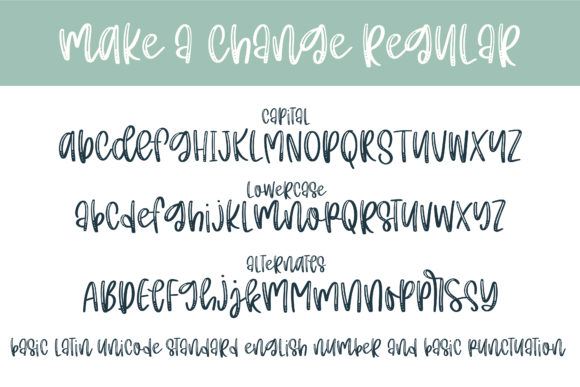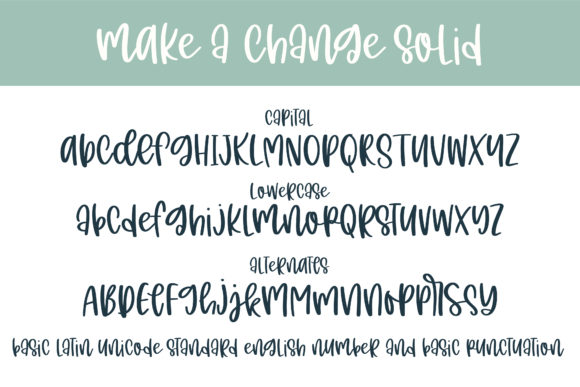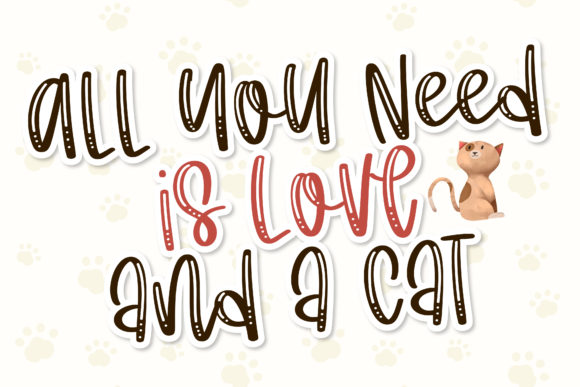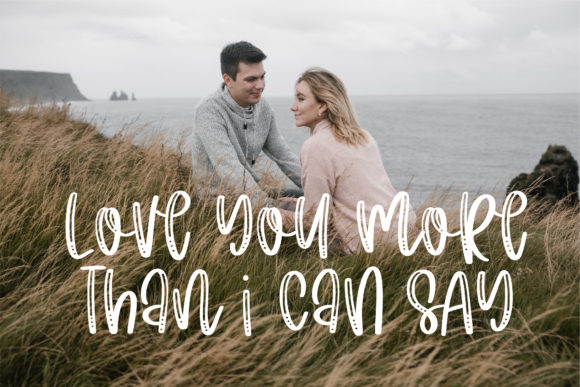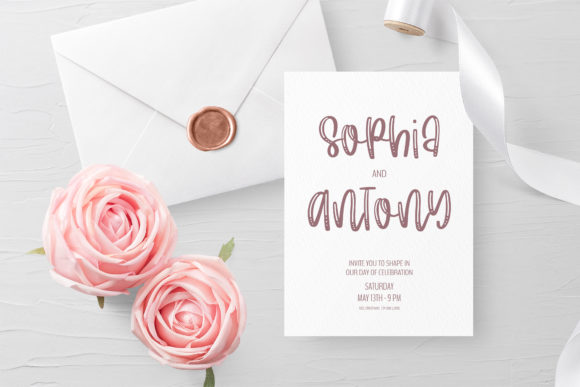
Introduction to Make a Change Font
You know that feeling when a single font can change the entire vibe of your creative project? It’s like the missing piece you’ve been searching for. That’s exactly what Make a Change Font is all about – giving your designs a unique and personalized touch.
Imagine having a font that’s not only free to download but also offers a high quality design resource that’s perfect for any creative project. With Make a Change Font, you can say goodbye to bland designs and hello to a world of possibilities. Its natural and unique style makes it incredibly fitting to a large pool of designs, from social media graphics to print materials.
Whether you’re a seasoned designer or just starting out, Make a Change Font is a valuable addition to your design arsenal. Its transparent background makes it easy to layer and combine with other design elements, giving you complete control over your creative vision.
Key Features of Make a Change Font
- High-quality design resource ideal for creative projects, with a clean and modern aesthetic.
- Comes in a single size, making it easy to use across different design projects.
- Designed with a high resolution of 300 DPI, ensuring crisp and clear text rendering.
- Unique characteristic: the font’s dynamic curves and rounded edges create a visually appealing effect, making it perfect for creative projects that require a touch of sophistication.
Honest Review: Make a Change Font
I recently had the chance to try out the Make a Change Font, and I’m excited to share my honest review. As a designer, I’m always on the lookout for high-quality design resources that can elevate my creative projects.
That being said, there are a few limitations to consider: ⚠️ The font doesn’t include any special characters or accents, which could be a problem for designers who need to work with non-English languages. Additionally, the font is only available in a few weights, which might limit its use in certain design scenarios.
Overall, I’m impressed with the Make a Change Font, and I think it’s a great addition to any designer’s toolkit. With its high-quality design and transparent background option, it’s a versatile and practical choice for any creative project.
Make a Change Font is a free download design resource that can elevate your creative project to the next level. With its high quality and transparent background, this font is perfect for any design project.
Use Make a Change Font in conjunction with other design elements, such as images and graphics, to create a visually appealing design. Experiment with different font sizes and colors to add emphasis and create contrast.
Common Use Cases for Make a Change Font
Make a Change Font is perfect for creating eye-catching headings, titles, and logos. It’s also great for adding a touch of creativity to your social media posts, blog articles, and other online content.